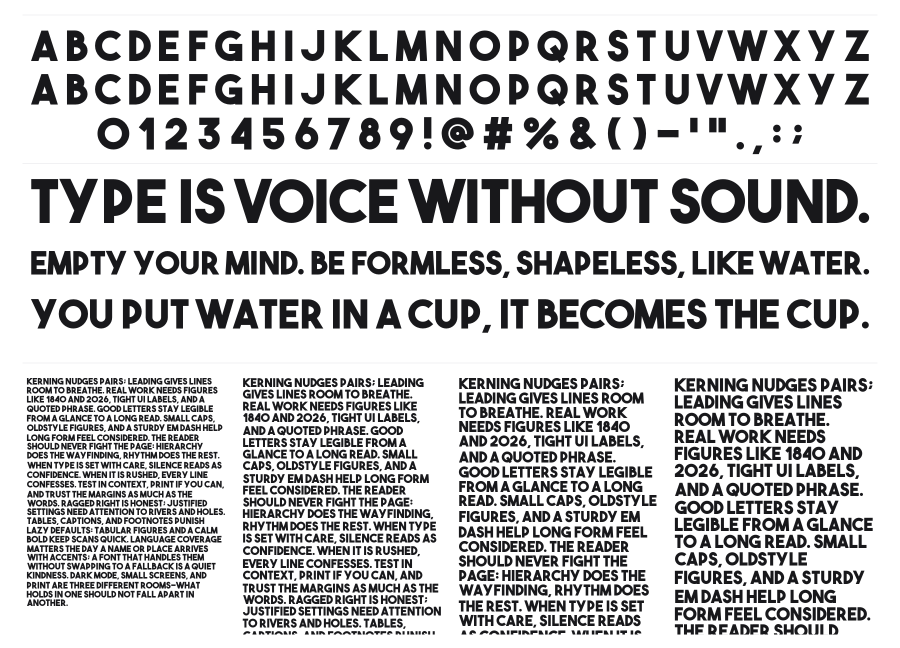
The Bold Font
by Sven Pels
The Bold Font by Sven Pels is exactly what it says: a wide, heavy geometric sans built entirely for impact. Its uppercase-only letterforms are thick and unapologetically black, with clean shapes and generous proportions that fill every inch of available space. Built for headlines, posters, and branding where nothing less than maximum visual weight will do.